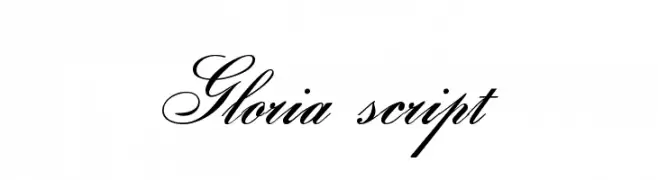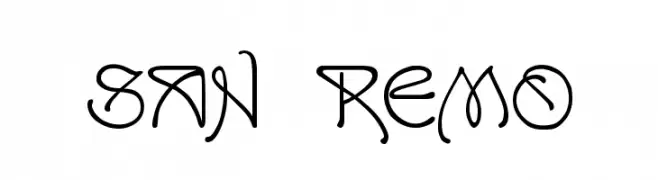
A bold, calligraphic font with elegant swashes and a modern flair.
A decorative font with intricate swirls and artistic embellishments.
An artistic and decorative font with intricate swirls and curves.
A bold, dynamic font with strong diagonal emphasis and sharp serifs.
An elegant script font with flowing, ornate letterforms and intricate swashes.
An elegant and ornate script font with intricate flourishes.
A bold, italicized font with sharp angles and high contrast, perfect for dynamic designs.
A tall, narrow serif font with a blend of classic and modern elements.
A bold, geometric font with sharp, angular edges and a modern flair.
A classic serif font with bold strokes and high contrast, ideal for formal use.